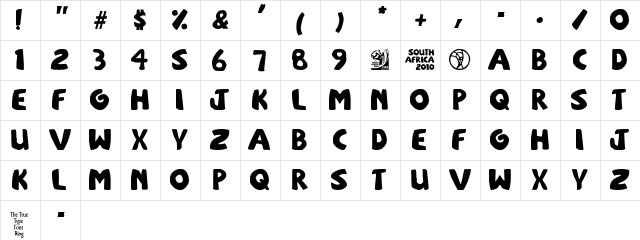
sOuTh Afirkas 2100 Regular Font Preview
sOuTh Afirkas 2100 Regular
Design Context for sOuTh Afirkas 2100 Typeface
sOuTh Afirkas 2100 is a composed and adaptable typeface that performs quietly and consistently across a wide range of design contexts.